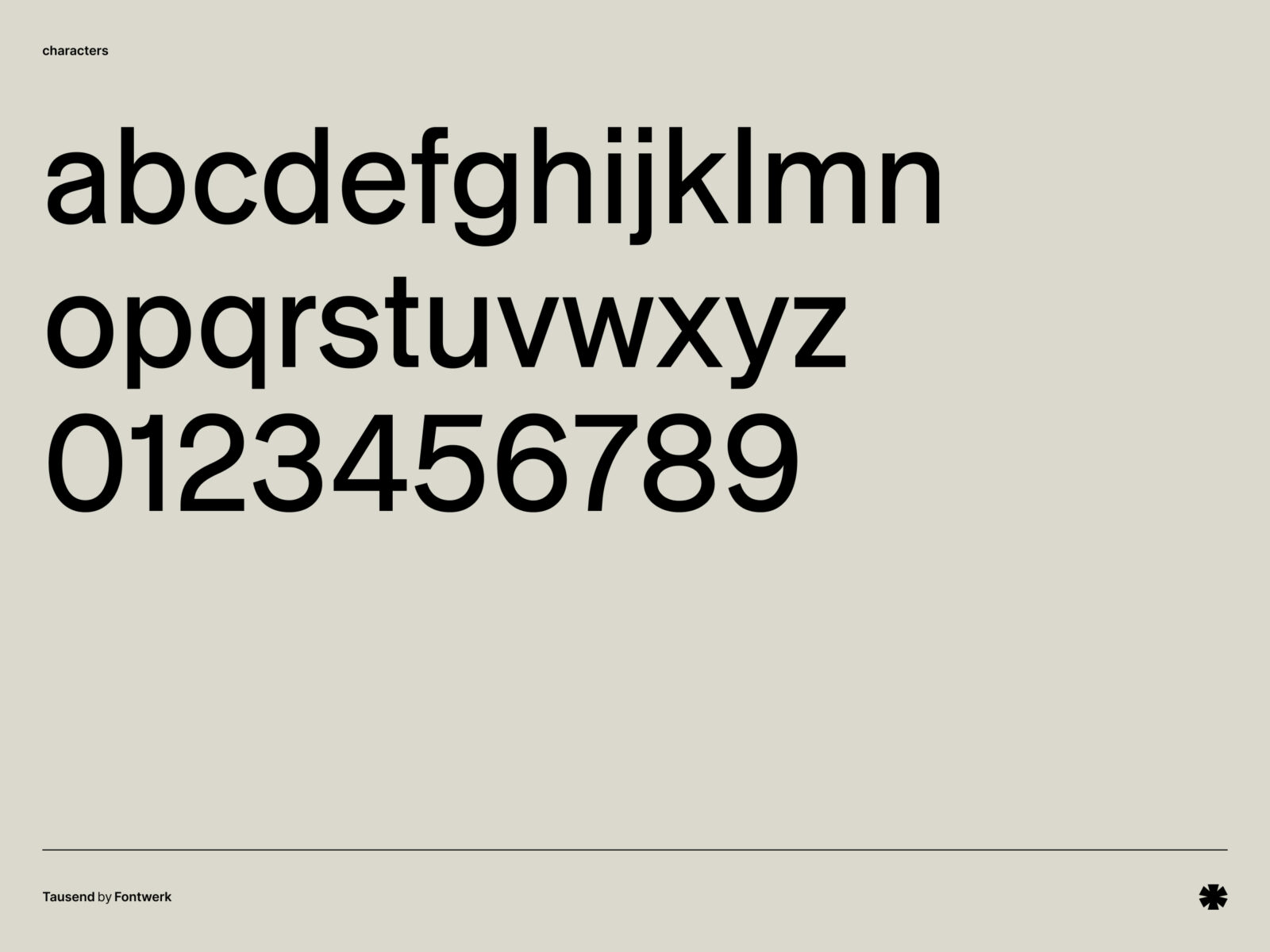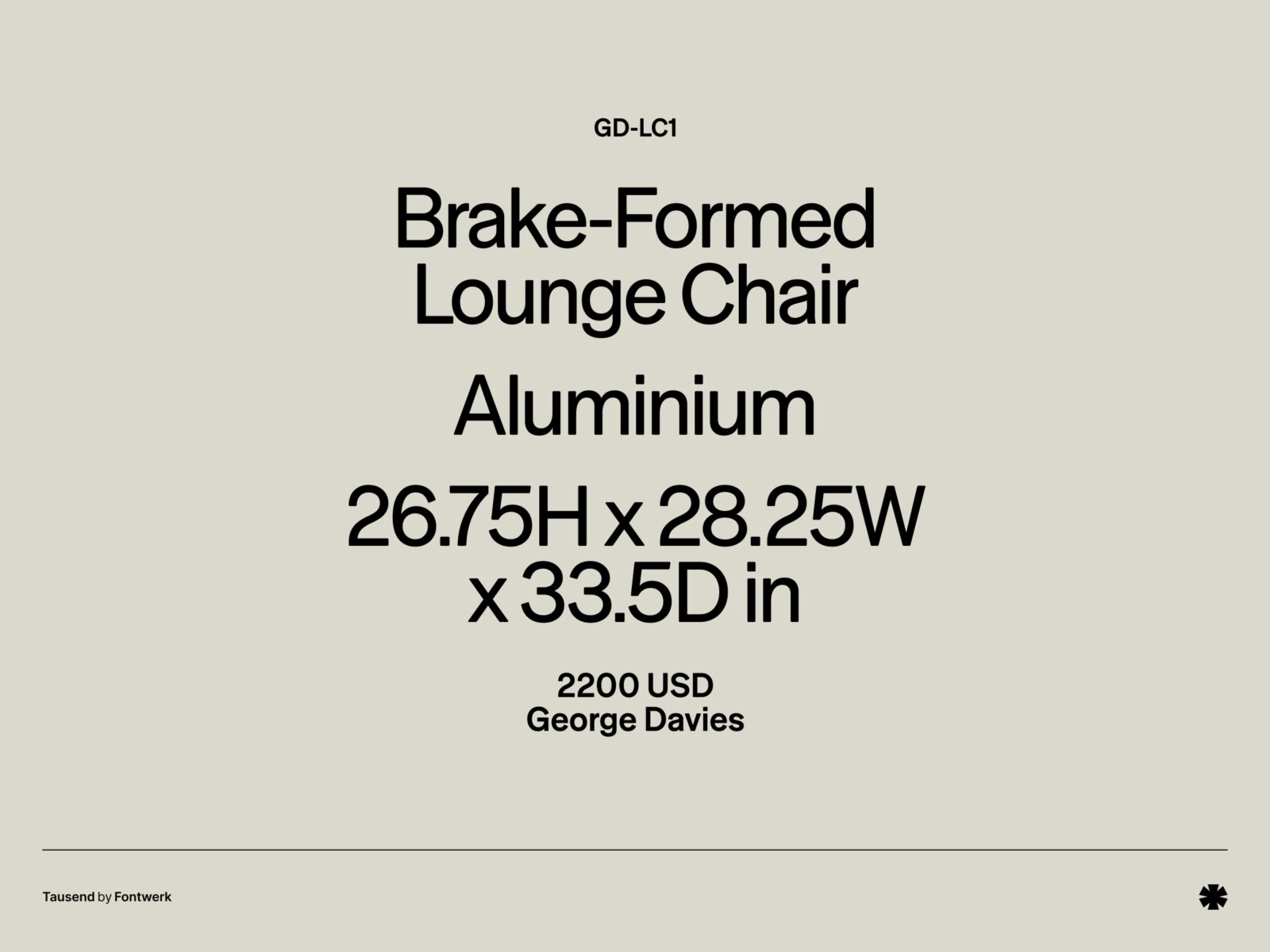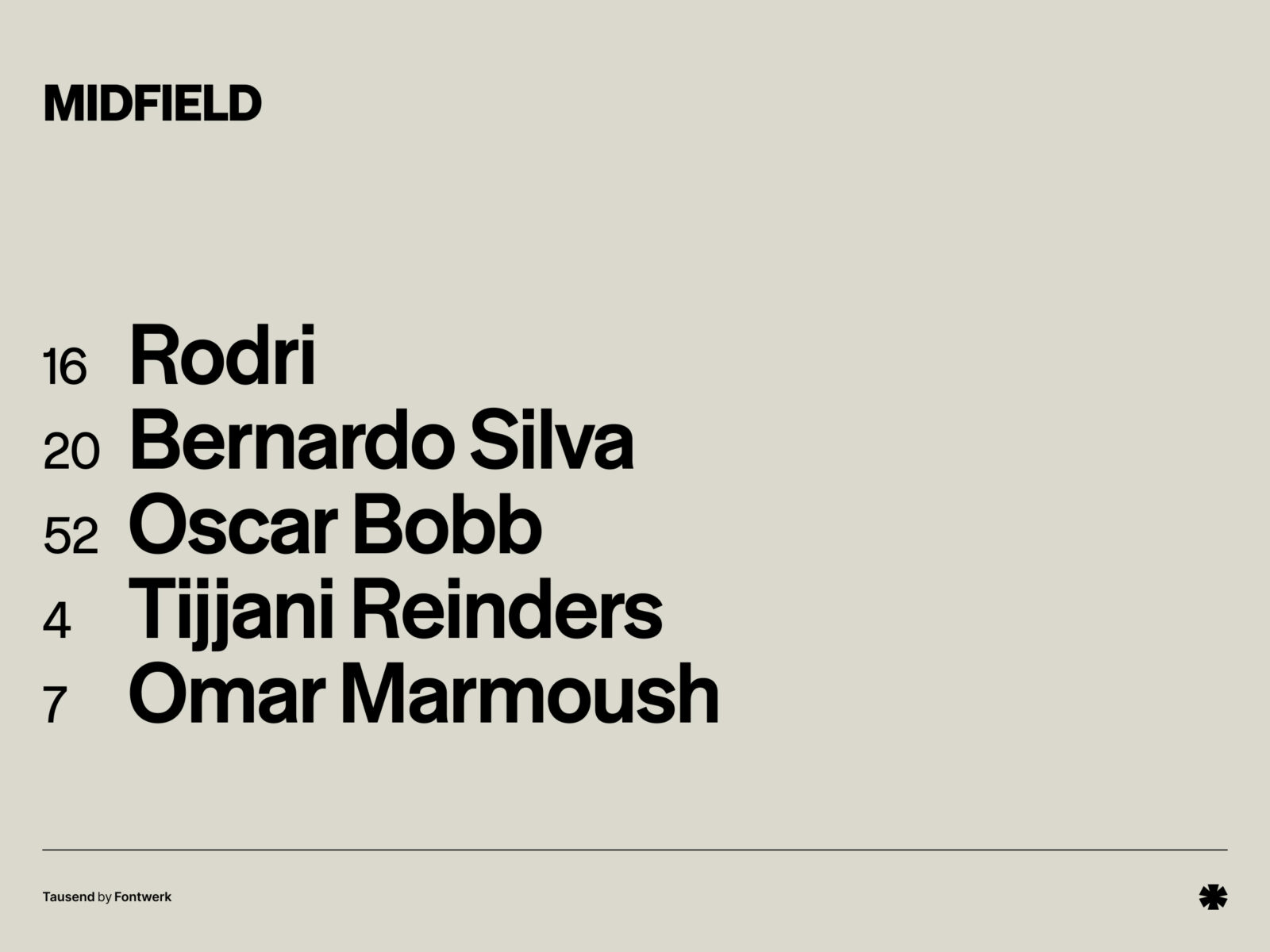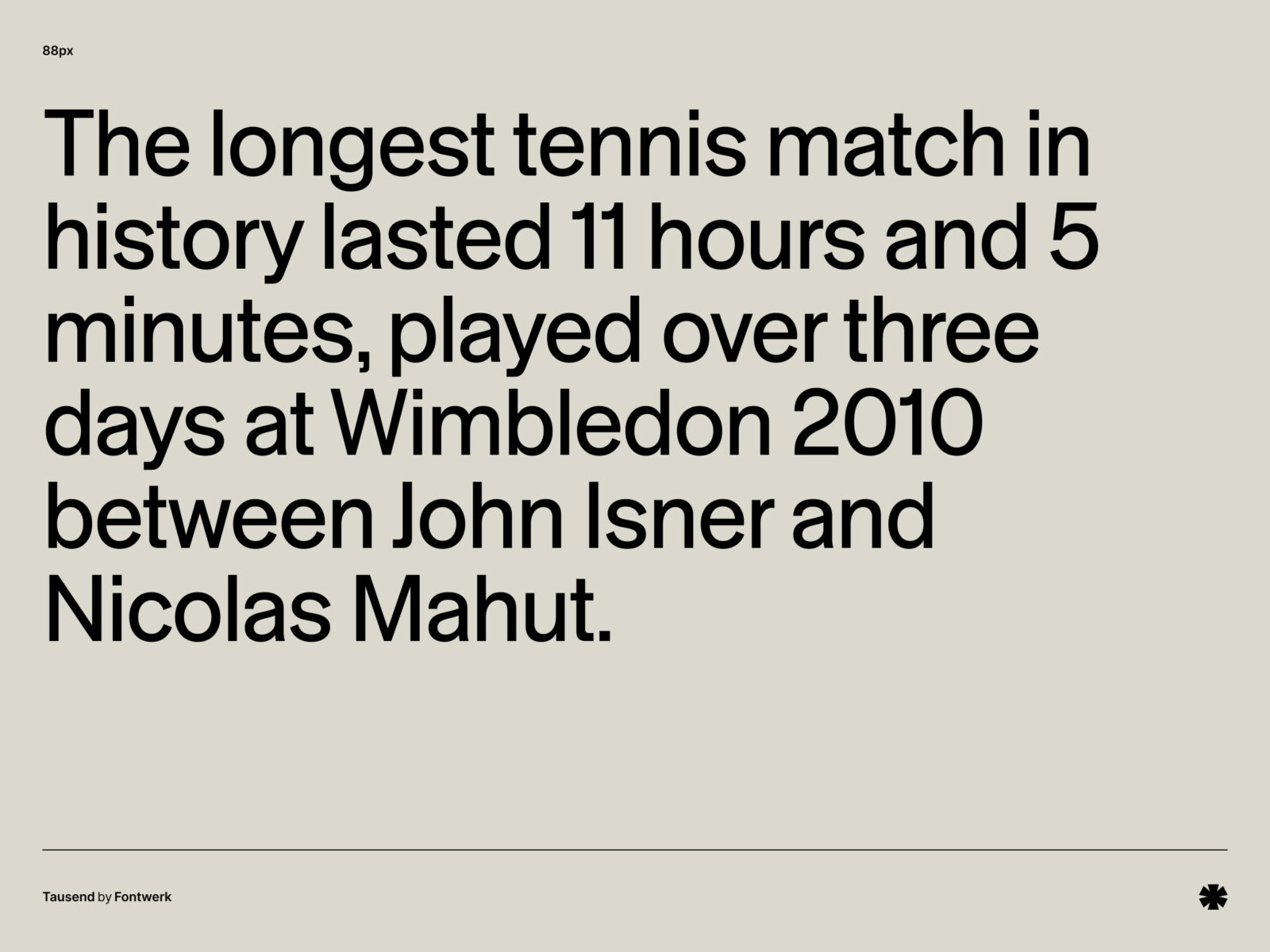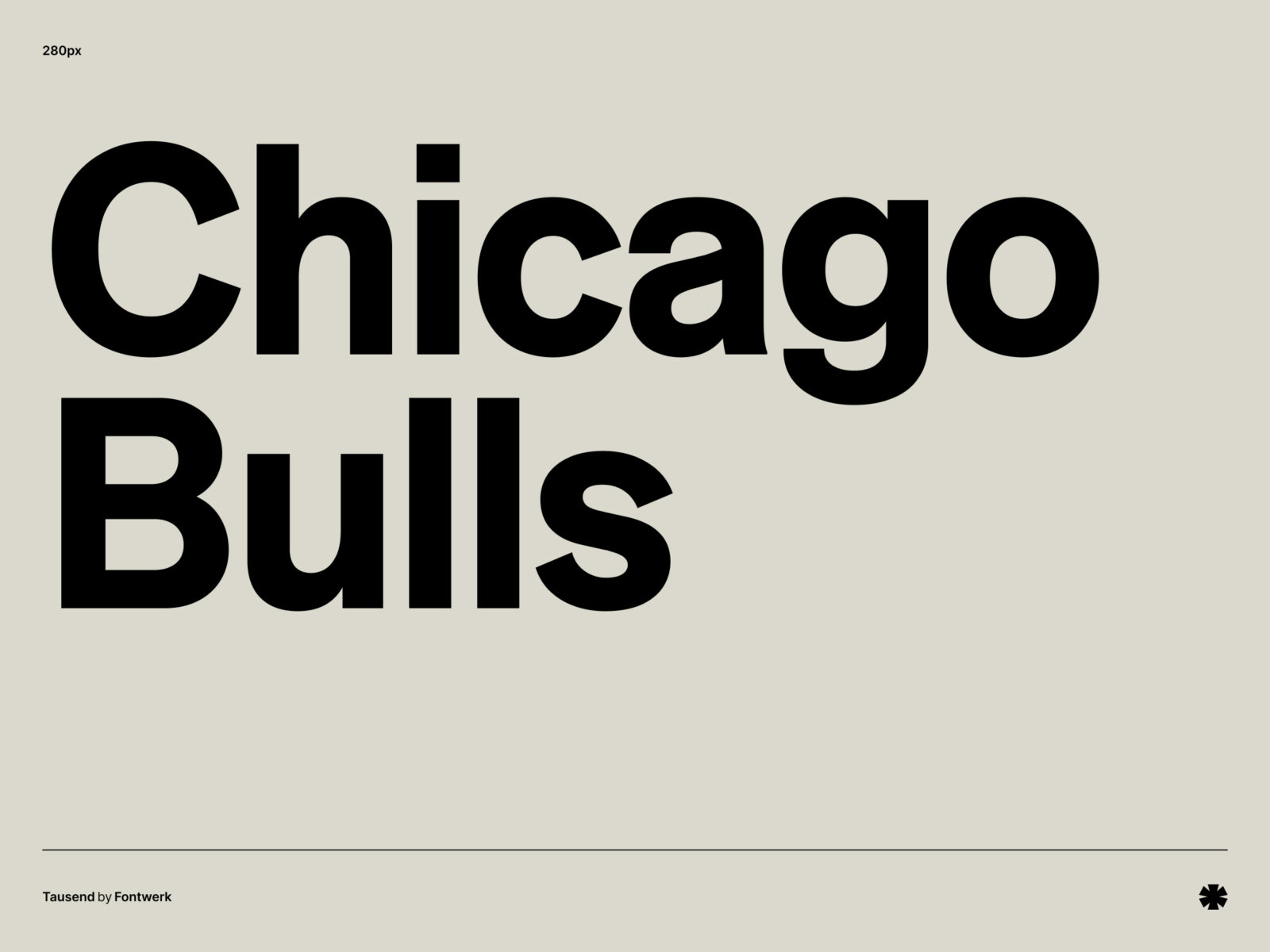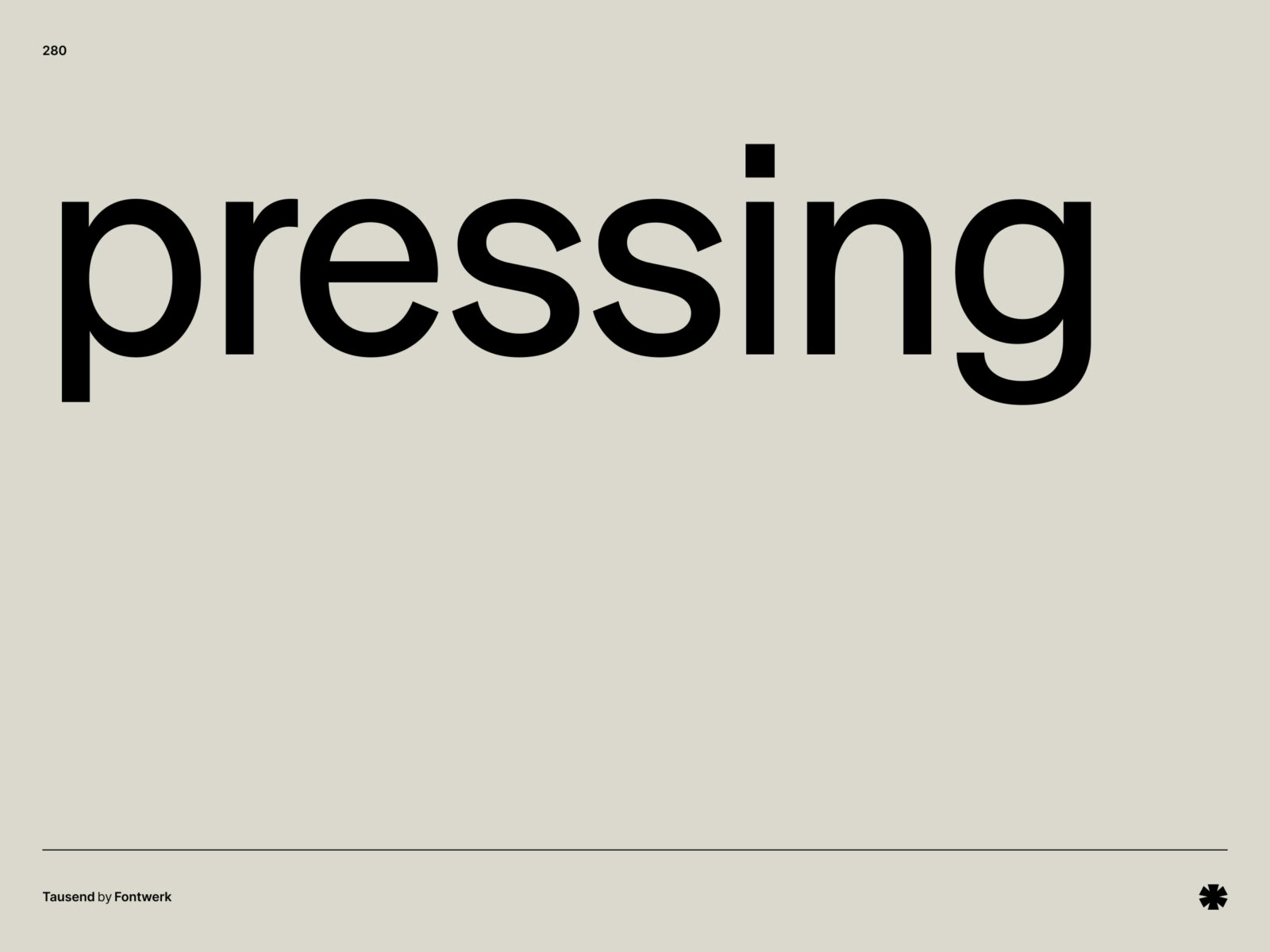
The name 'Tausend' takes inspiration from the number 'thousand'. It can be used for pretty much anything; from body text to bold posters, and its variable font technology allows for fine-tuned customization.
Fontwerk
Christoph Koeberlin, Gabriel Richter